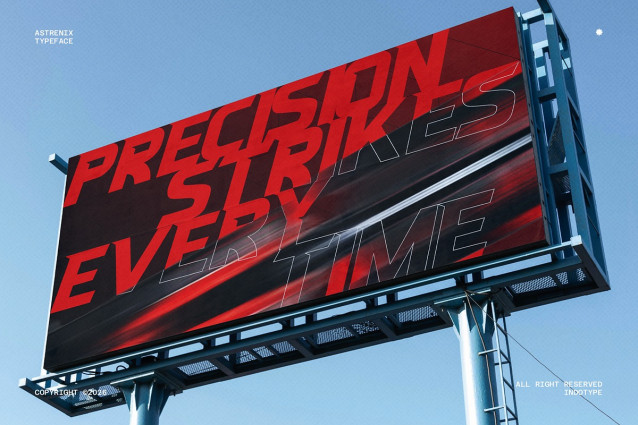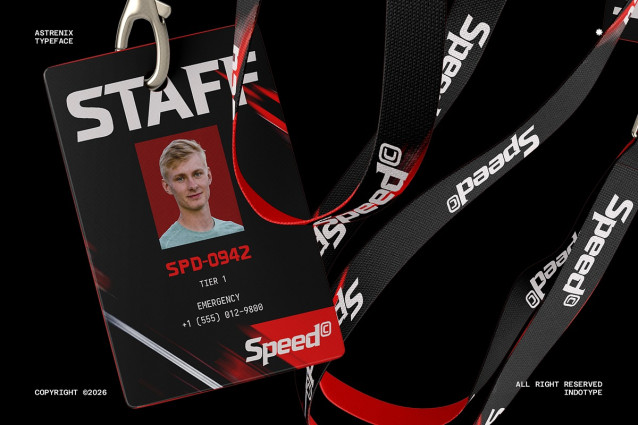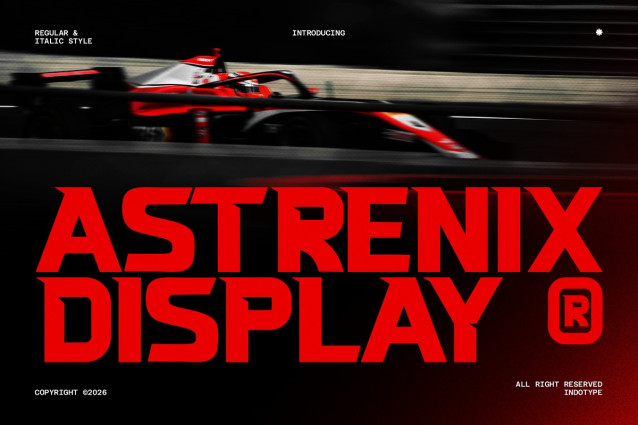
IT Astrenix Font
IT Astrenix Font is a high-velocity, futuristic typeface engineered for the intersection of elite sports and cutting-edge technology. Its design evokes speed, precision, and digital energy, with sharp angles, streamlined forms, and a dynamic structure that feels both aerodynamic and electrically charged. This font doesn’t just display text—it visualizes motion and innovation. Built for maximum impact, Astrenix Display is the ultimate choice for esports team branding, athletic performance wear, tech gadget marketing, energy drink labels, and any project that needs to communicate peak performance and a forward-thinking attitude. It’s the typographic fuel for brands that operate at the forefront of speed and style.